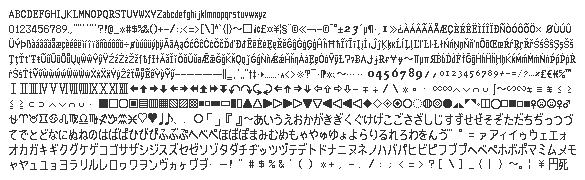
Altima - a Final Fantasy Tactics pixel font. Altima is a mixed serif/sans-serif pixel font recreation based on the original main text font appearing in the Sony PlayStation video game Final Fantasy Tactics, developed by Square and released by Square and Sony Computer Entertainment in 1997. The character set of this font was greatly expanded with the full Japanese hiragana and katakana alphabets, countless additional special characters, diacritic variants, unique glyphs and the like, each one of them designed to match the spirit and style of the original font design. To recreate the original look of the in-game pixel font stick to font sizes that are multiples of 16pt and avoid any anti-aliasing or other font smoothing methods. Features • 822 characters total • Proportional mixed typeface • Complete original Japanese hiragana and katakana character sets • Countless additional special characters, diacritic variants, etc. Please contact me for any commercial use of my fonts. Copyright © 2015 Caveras. All rights reserved. |